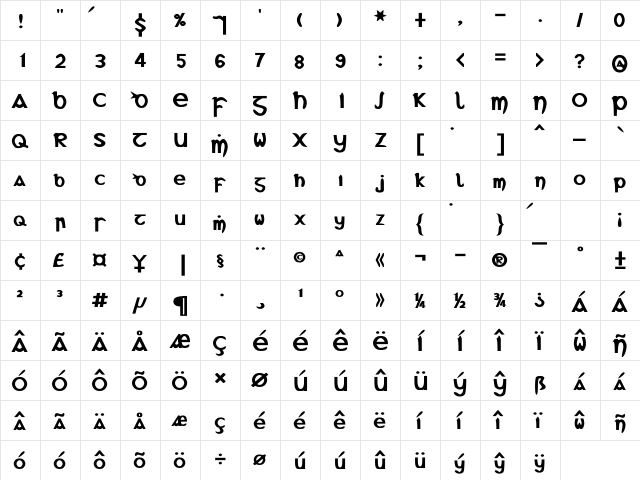
Gael A Bold
Design Context for Gael A Typeface
Gael A is a composed and adaptable typeface that performs quietly and consistently across a wide range of design contexts. The heavy weight commands attention and anchors typographic hierarchies.